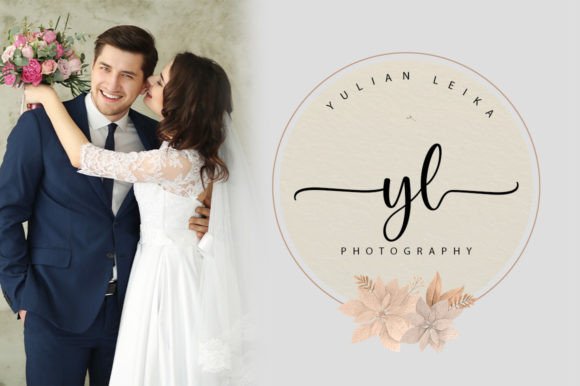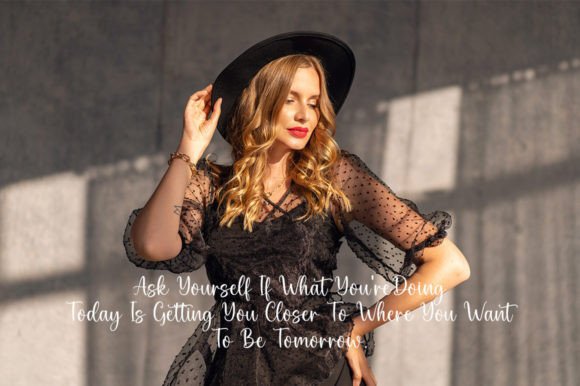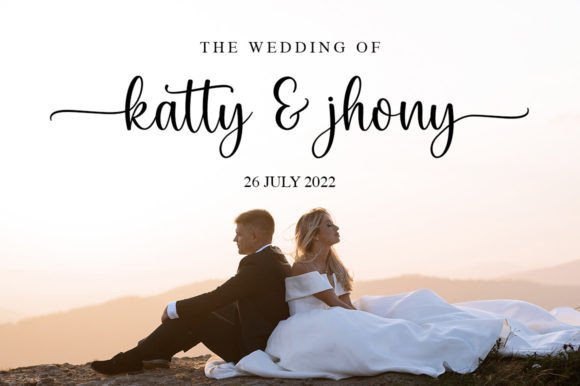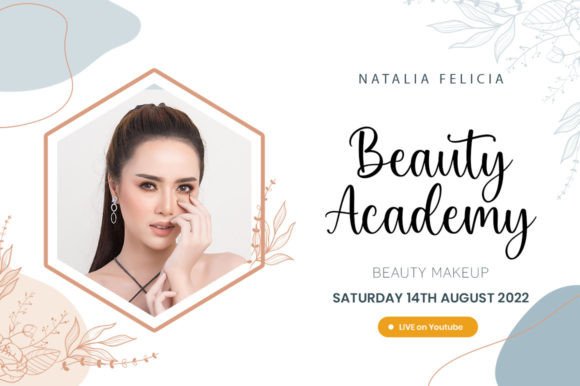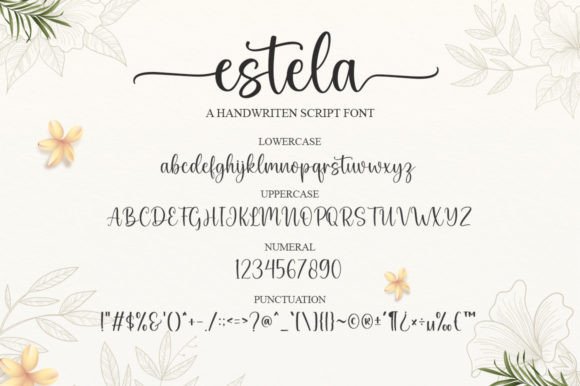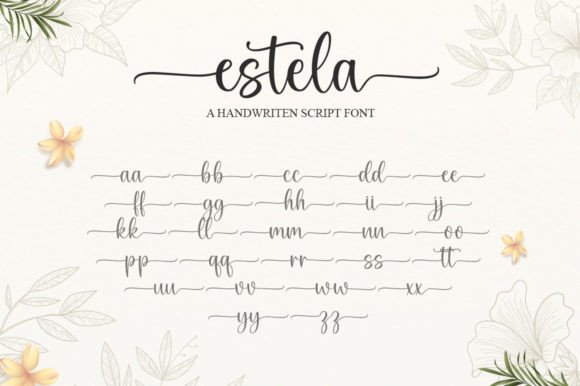
Introducing Estela Font: The Epitome of Elegance and Versatility
In the realm of typography, few fonts manage to strike a balance between elegance, delicacy, and versatility. Estela Font is one such gem that has captured the hearts of designers and crafters alike. This exquisite handwritten font is characterized by its flowing lines, beautiful glyphs, and exceptional balance, making it an ideal choice for a wide array of design projects.
The Beauty of Estela Font
Estela Font is a masterpiece of typographic artistry. Its delicate and elegant appearance lends a touch of sophistication to any design. The flowing lines and curves of the font are meticulously crafted to create a visually appealing aesthetic that is both classic and contemporary. The characters in Estela Font are well-balanced, ensuring that the text is easy to read and understand, while also being visually stunning.
One of the standout features of Estela Font is its incredible versatility. Its elegant and flowing design makes it suitable for a wide range of projects, from wedding invitations and stationery to branding, packaging, and digital media. Whether you’re creating a sophisticated logo, a beautiful blog, or an eye-catching advertisement, Estela Font is sure to elevate your design to new heights.
Estela Font takes convenience to the next level with its PUA (Private Use Area) encoding. This means that users can access all the glyphs and swashes with ease, allowing for greater creative freedom and flexibility. The PUA encoding ensures that designers can effortlessly incorporate the font’s beautiful alternates and ornaments into their work, making it easier to create stunning and unique designs.
Why Designers and Crafters Love Estela Font
Designers and crafters around the world have fallen in love with Estela Font for several reasons:
• Elegant and Refined Aesthetic: Estela Font adds a touch of elegance and sophistication to any design, making it perfect for projects that require a high level of refinement.
• Exceptional Legibility: The font’s well-balanced characters and flowing lines ensure that the text is easy to read, even at small sizes.
• Versatility: Estela Font can be used for a wide range of projects, from digital media to print materials.
• Easy to Use: The PUA encoding makes it simple to access all the glyphs and swashes, allowing designers to focus on creating stunning designs.
Tips for Using Estela Font
To get the most out of Estela Font, here are a few tips:
• Pair it with Other Fonts: Estela Font pairs beautifully with other fonts, especially those with a modern or serif design. Experiment with different combinations to find the perfect match for your project.
• Use it for Headings and Titles: Estela Font is perfect for headings and titles, where its elegant and flowing design can truly shine.
• Take Advantage of Glyphs and Swashes: With PUA encoding, you can easily access all the glyphs and swashes to add a personal touch to your designs.
Estela Font is a true gem in the world of typography. Its delicate, elegant, and flowing design makes it an ideal choice for designers and crafters looking to add a touch of sophistication to their work. With its exceptional versatility, PUA encoding, and beautiful glyphs, Estela Font is sure to become a staple in any designer’s toolkit. So why wait? Discover the beauty of Estela Font and take your designs to new heights!